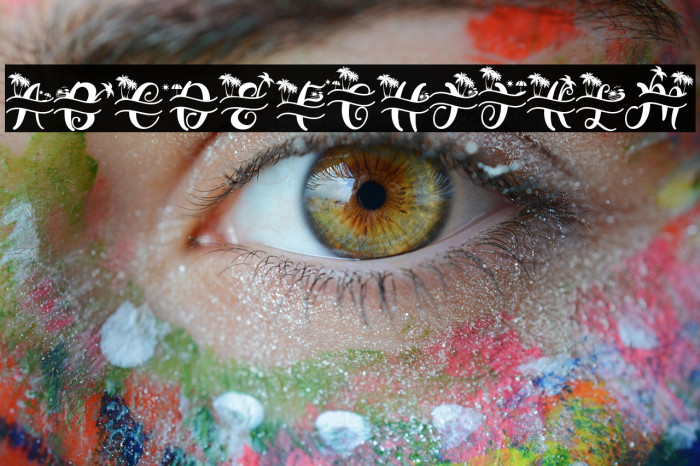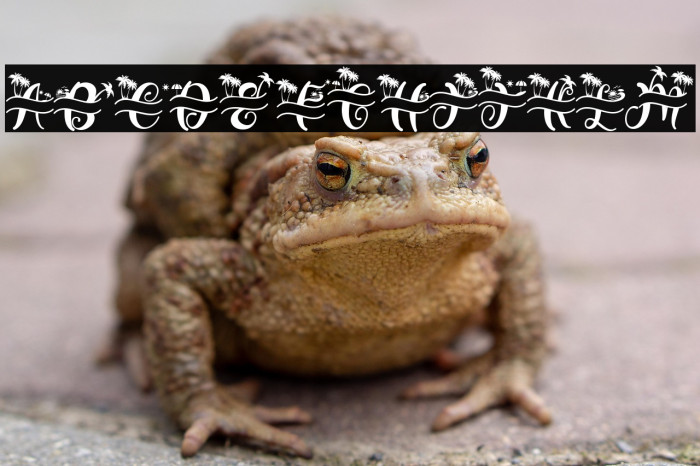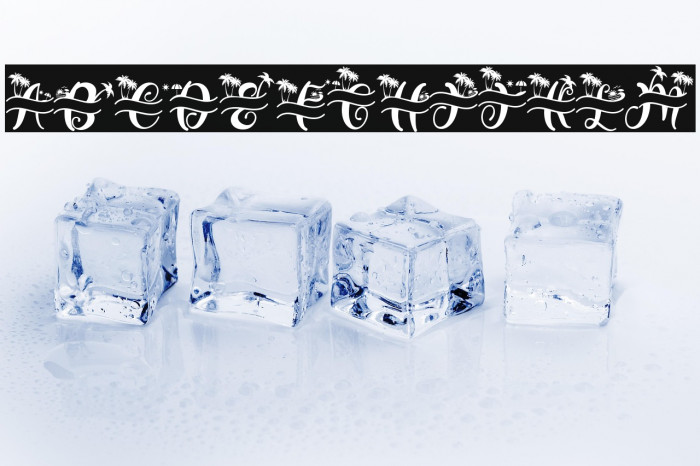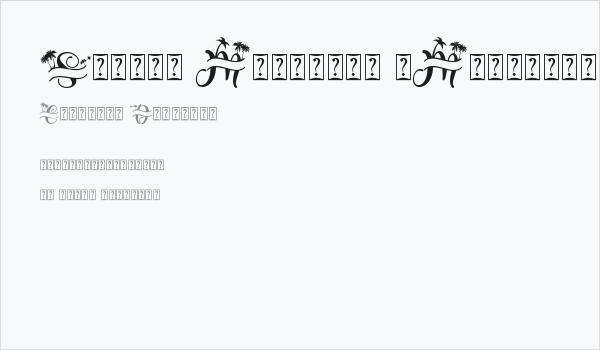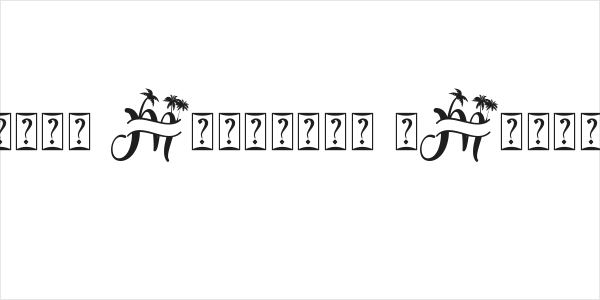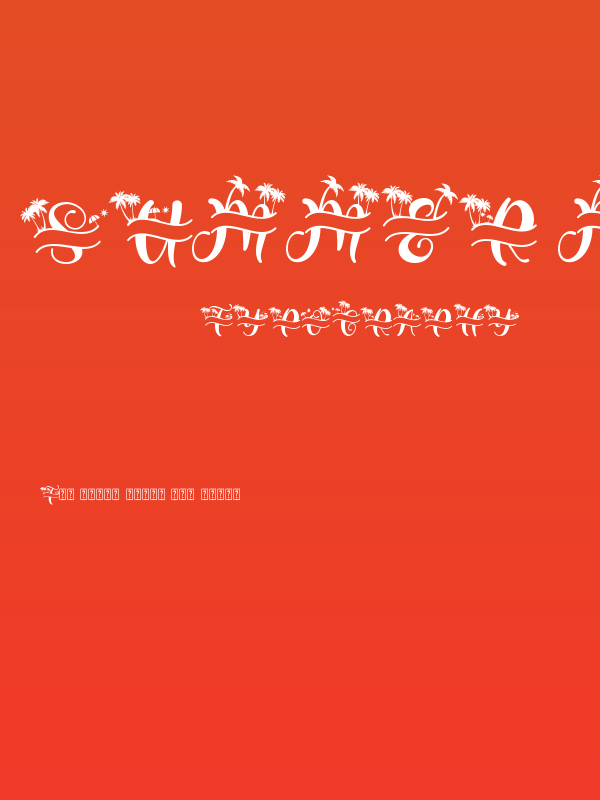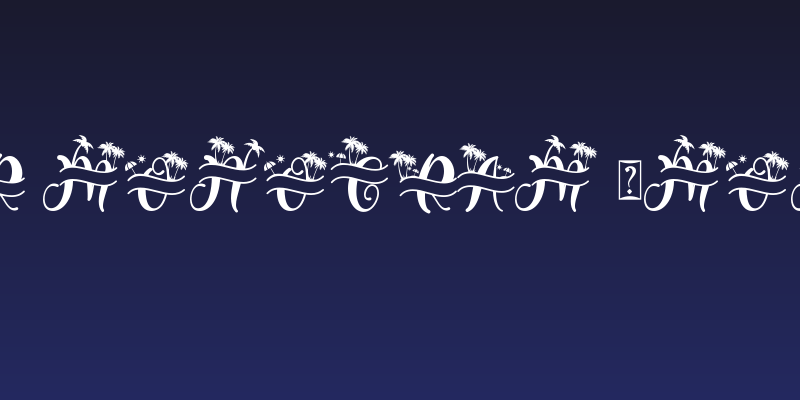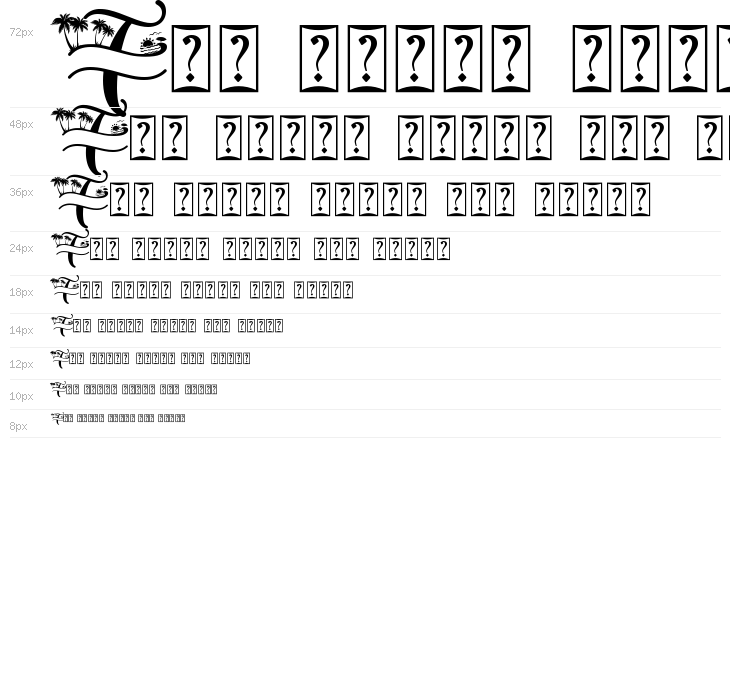
Summer Monogram (Monogram) Font
Summer Monogram (Monogram) Description
This decorative font features a whimsical and playful design, incorporating elements of summer such as palm trees and waves into the letterforms. Each character is adorned with intricate details that evoke a tropical and relaxed atmosphere, making it ideal for projects that aim to capture the essence of summer. The font's unique style is both eye-catching and artistic, with a strong emphasis on decorative elements that enhance its visual appeal. The overall design is cohesive, with each letter seamlessly integrating the summer motifs, creating a harmonious and thematic appearance.
| Use Case | Logos, Headlines, Posters |
| Proposed Projects | Ideal for summer event invitations, beach-themed posters, and tropical branding materials. |